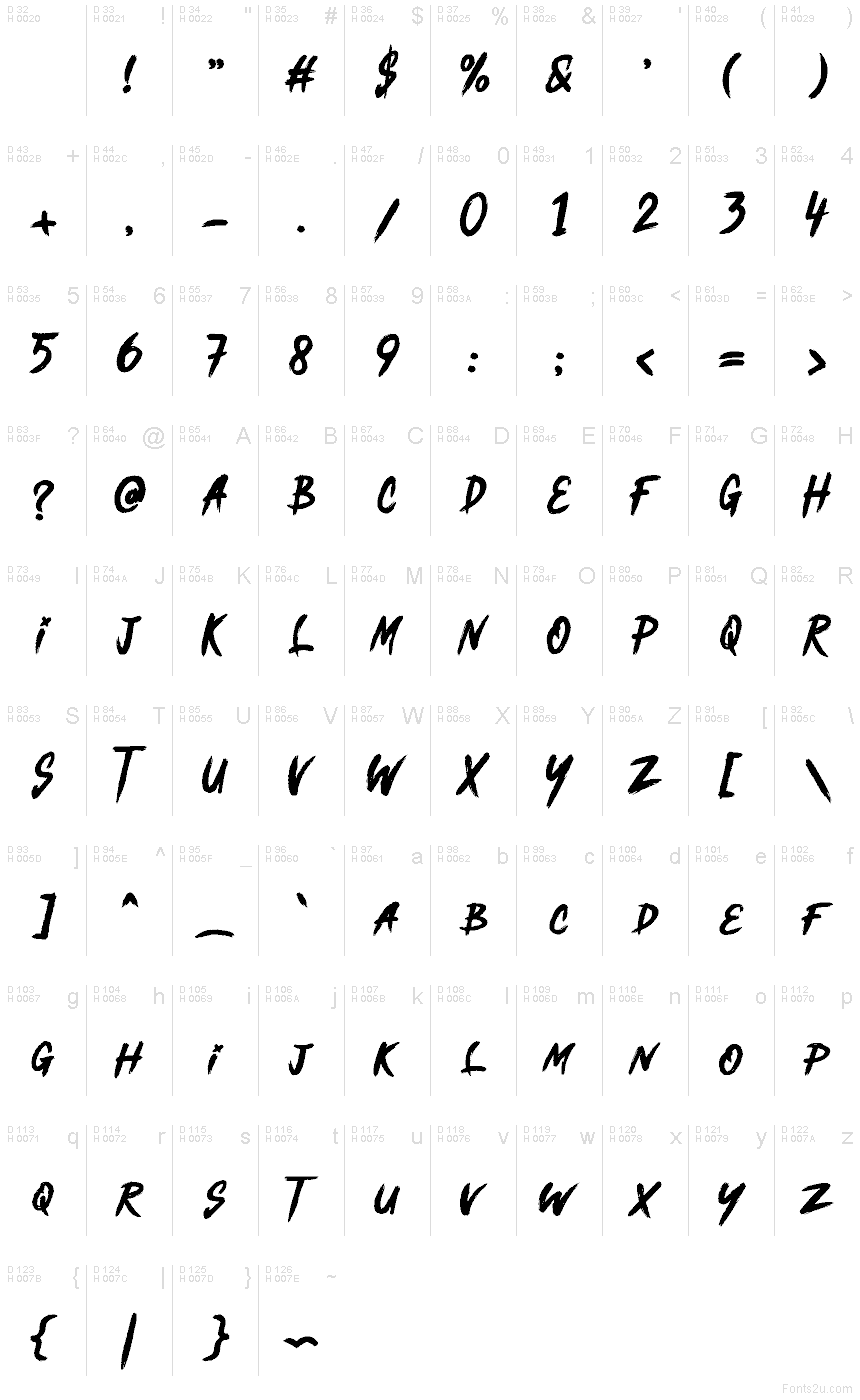
Slither Halows
Slither Halows font by Dhabee Studio is a free scary display font that lunges off the page with claw-mark strokes and ragged, wet-ink smears. The letters tilt forward like a sprint in the dark, with torn edges and flicked endings that feel hand-slashed yet readable at a glance. It packs feral energy without losing structure, so headlines hit hard and fast.
Using Slither Halows, you can charge up Halloween posters, haunted house flyers, horror film titles, escape room branding, game splash screens, spooky merch, and eerie YouTube thumbnails. This free font thrives at big sizes with slightly tighter tracking. Pair it with a clean condensed sans for body copy to let the slashed brushwork take center stage.